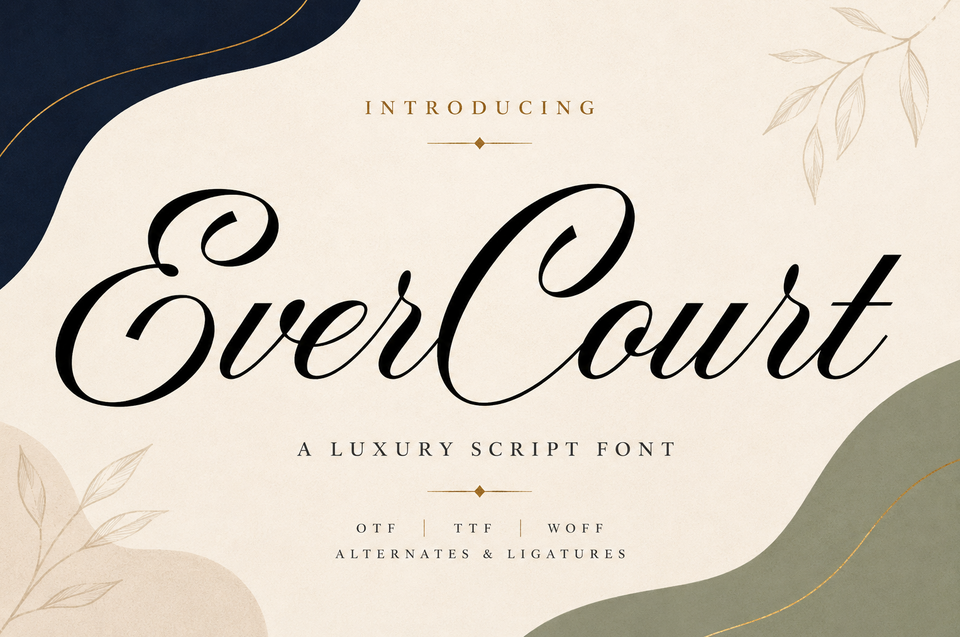
Evercourt — Romantic Script Font with Swashes
Evercourt is a romantic script typeface built for the moments words get emotional: wedding invitations, stationery suites, love letters, and every celebration where the message deserves to look as good as it reads. Its sweeping capitals and connected lowercase forms carry a hand-finished rhythm, while the ornamental end swashes and stylistic alternates give you room to make every layout feel bespoke.
The typeface ships as a single Regular style — no confusing weight juggling, one voice that works from a full-page invitation to a tiny monogram. Inside the file you get 363 carefully built glyphs: complete Basic Latin uppercase and lowercase, numerals, punctuation, and a set of decorative alternate glyphs supplied with the original design. The OpenType feature set includes GSUB and GPOS tables with six stylistic sets (ss01–ss06) and end swashes, so you can swap in alternate letterforms and ornamental flourishes directly from your design application's Glyphs panel.
Key features:
- Ornamental swashes — end swashes add a hand-touched flourish to invitations, monograms, and editorial drops.
- Stylistic alternates (ss01–ss06) — swap letterforms to change the mood from reserved to elaborate without redrawing a thing.
- Connected lowercase — natural, joined script flow for headings, quotes, and signature-style text.
- 363 glyphs — full Basic Latin, numerals, punctuation, and decorative alternates in one file.
Where it shines: wedding invitations and save-the-dates, ceremony programs, thank-you cards and stationery, branding for florists and event planners, product packaging, greeting cards, Valentine's and anniversary campaigns, editorial headlines, and logo work that needs a romantic, human touch.